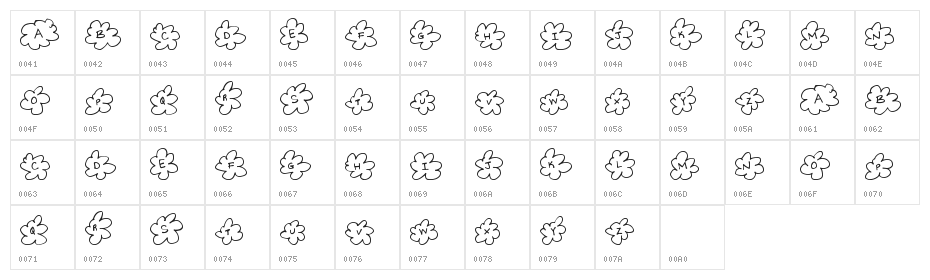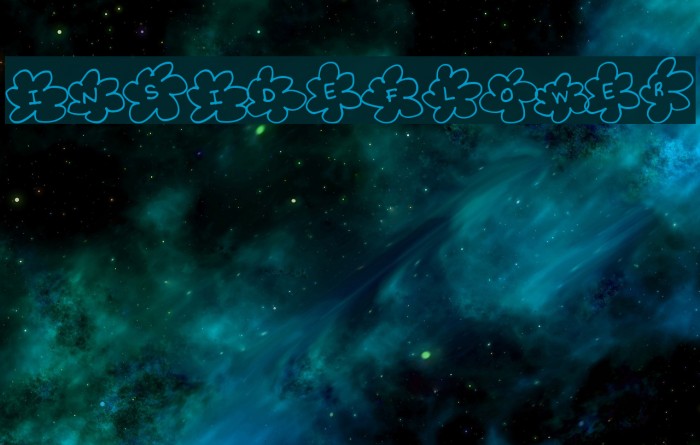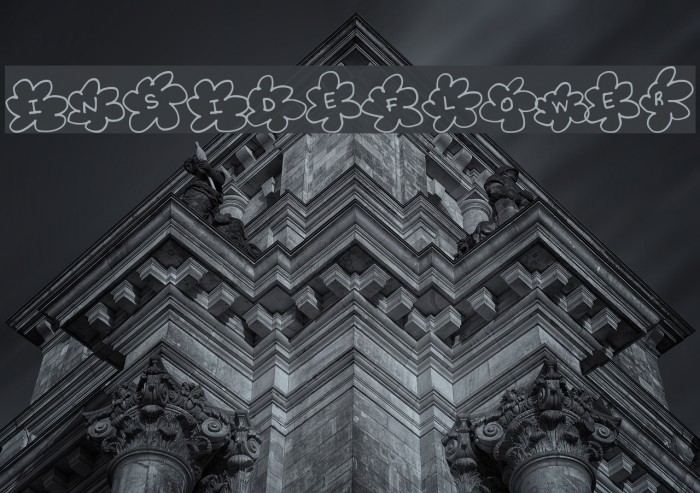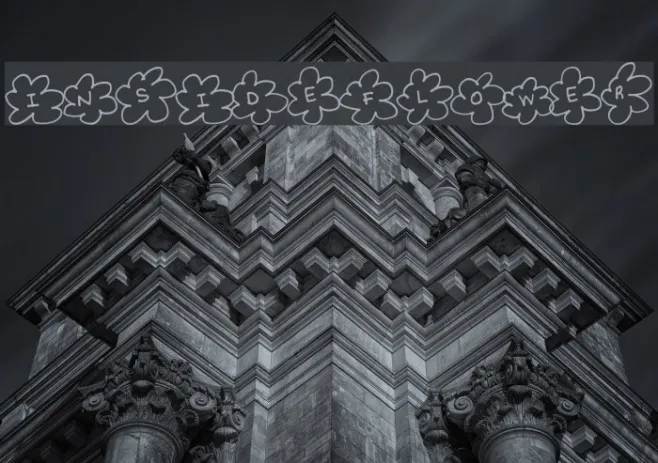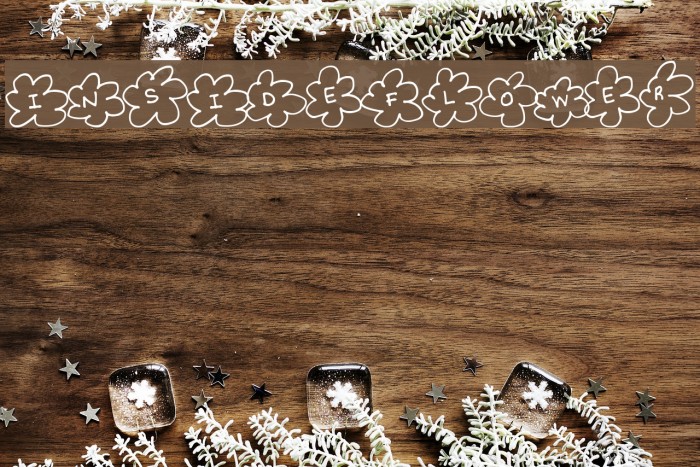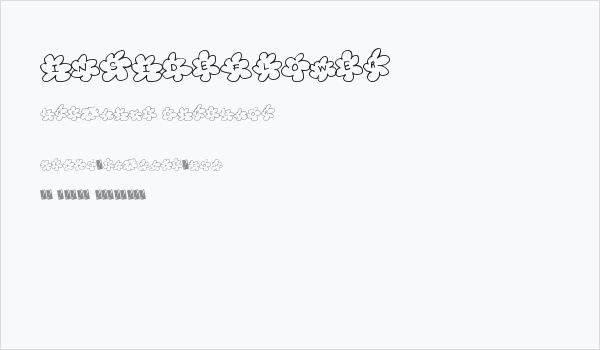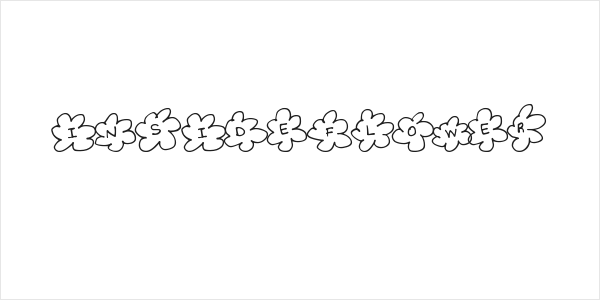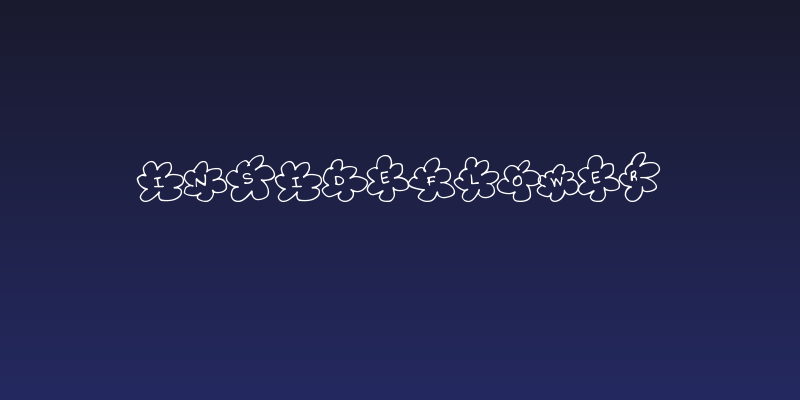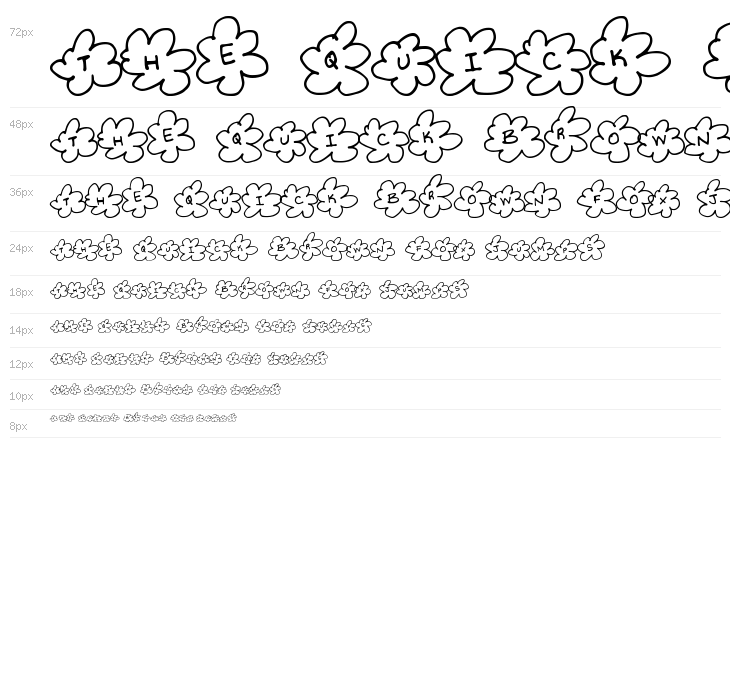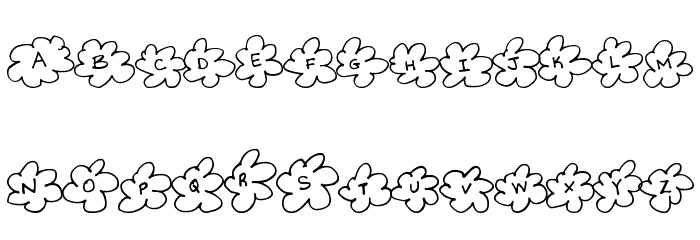
InsideFlower Font
InsideFlower Description
This playful and whimsical font features characters enclosed within flower-shaped outlines, creating a fun and lively appearance. The letters are bold and rounded, with each character centered inside a five-petal flower, giving it a unique and decorative style. The font is highly decorative and not suitable for body text, but it can add a cheerful touch to creative projects. The consistent use of floral motifs throughout the alphabet adds a cohesive and thematic element, making it ideal for designs that require a touch of nature or playfulness.
Proposed ProjectsIdeal for children's book covers, playful invitations, greeting cards, and themed event posters.